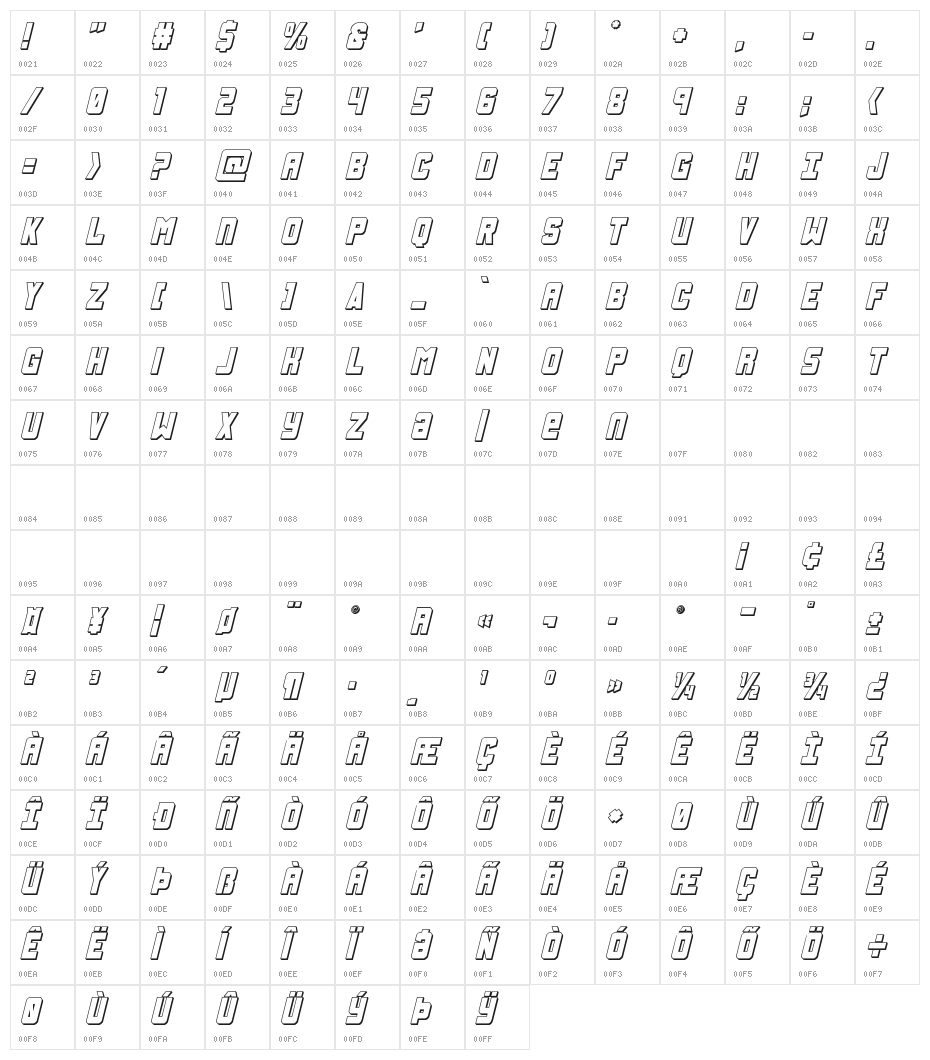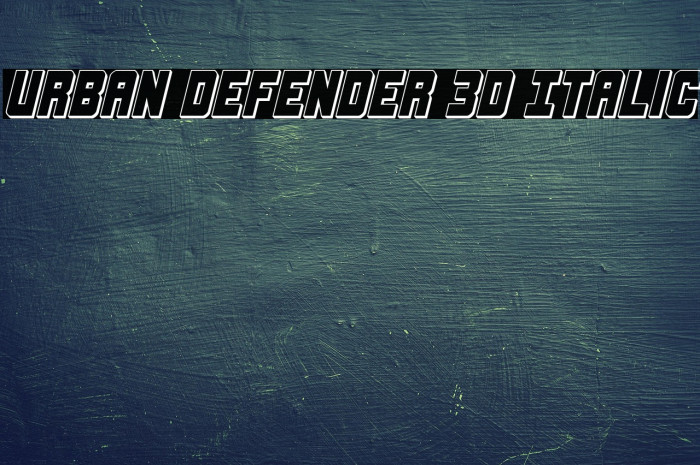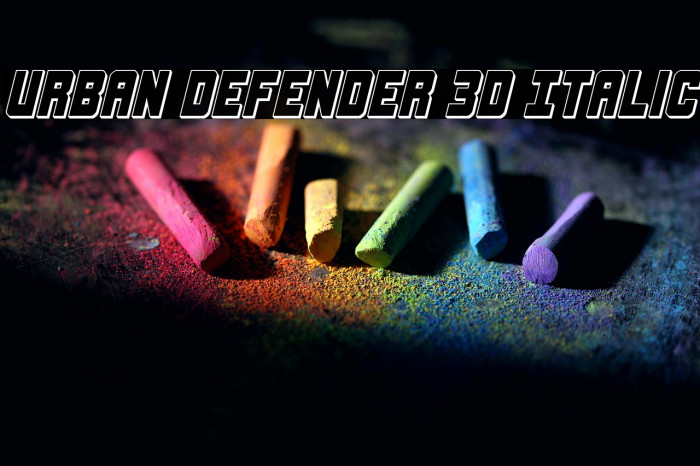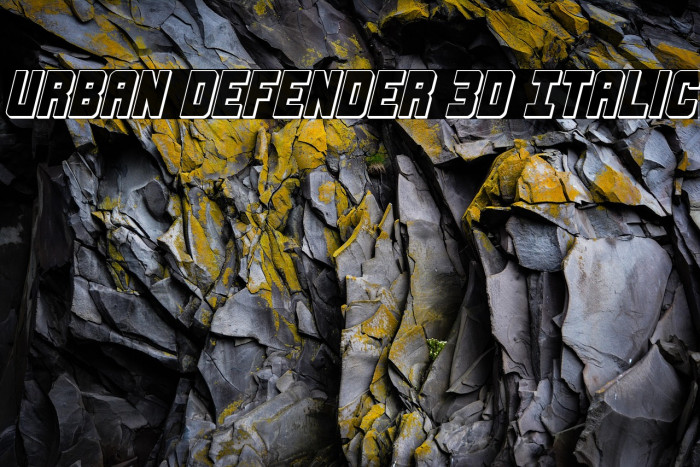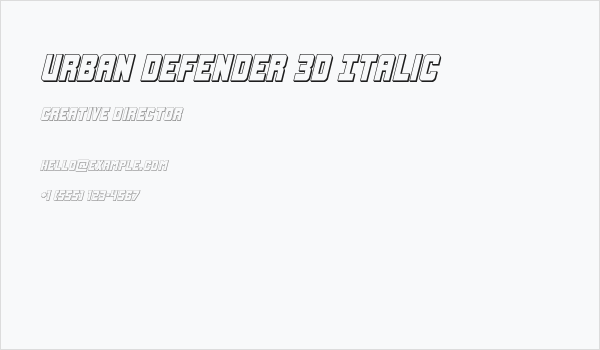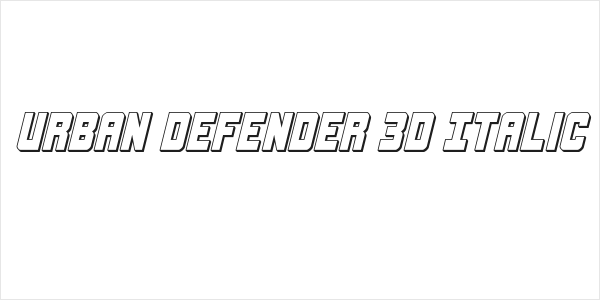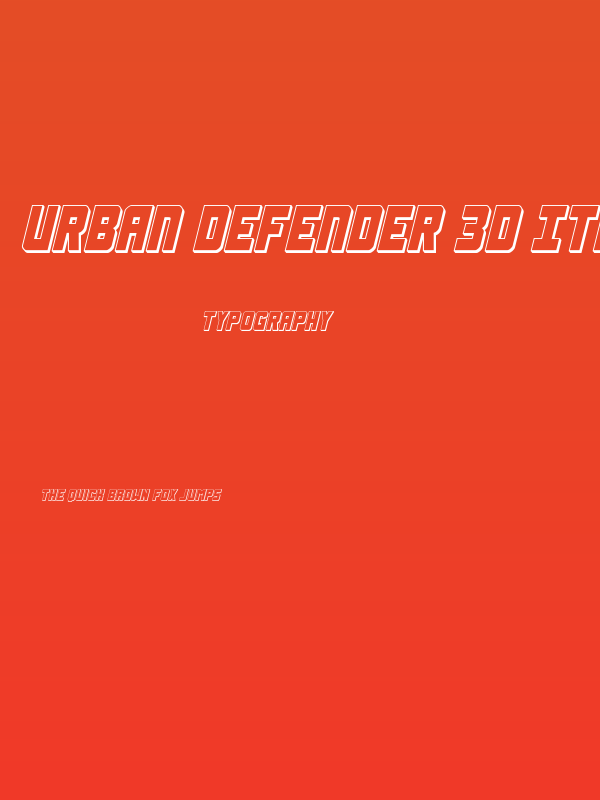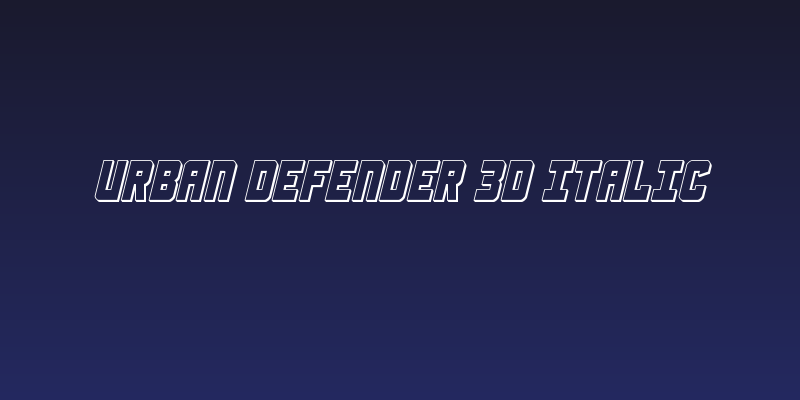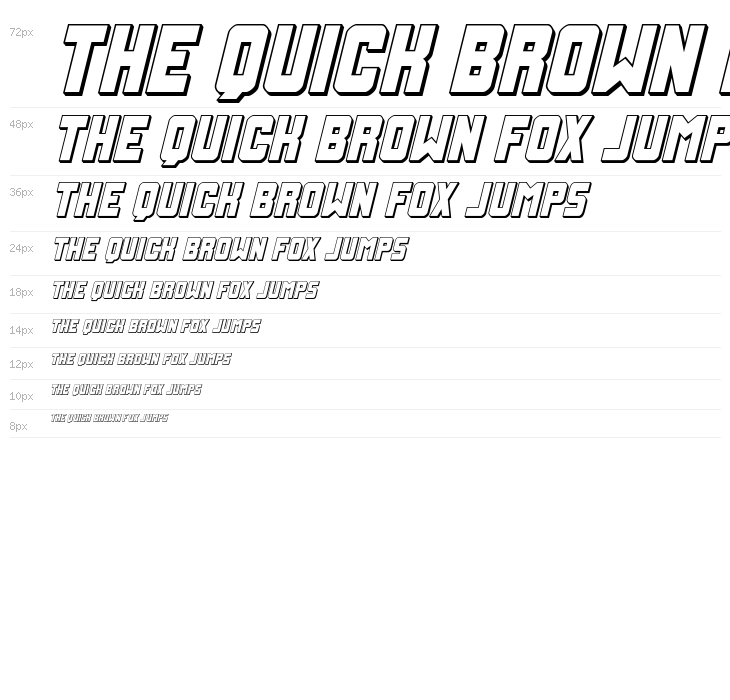
Urban Defender 3D Italic Font
Urban Defender 3D Italic Description
This font features a bold, three-dimensional design with an italic slant, giving it a dynamic and modern appearance. The characters are outlined, creating a striking contrast that enhances the 3D effect. The uppercase letters are angular and geometric, with sharp edges and a consistent thickness throughout. The numerals and special characters follow the same bold and structured style, ensuring uniformity across all elements. This font's unique style makes it ideal for attention-grabbing designs.
| Proposed Projects | Ideal for posters, video game graphics, branding, and any project requiring a bold, futuristic look. |